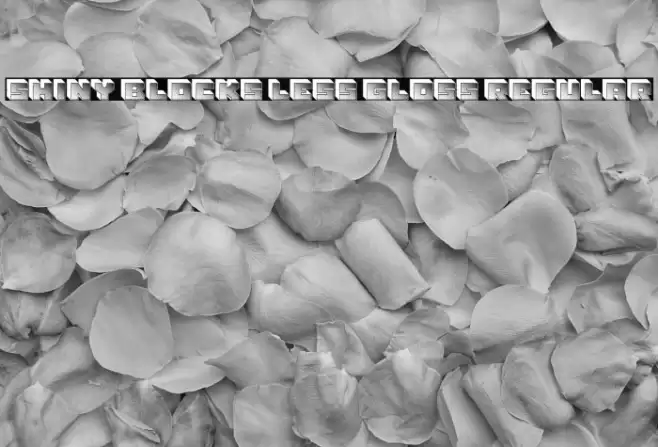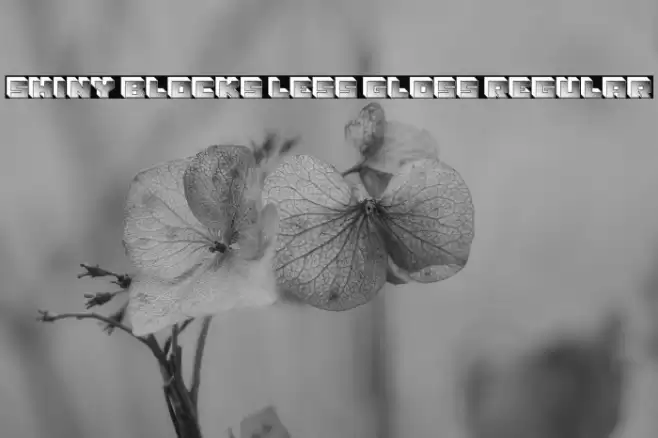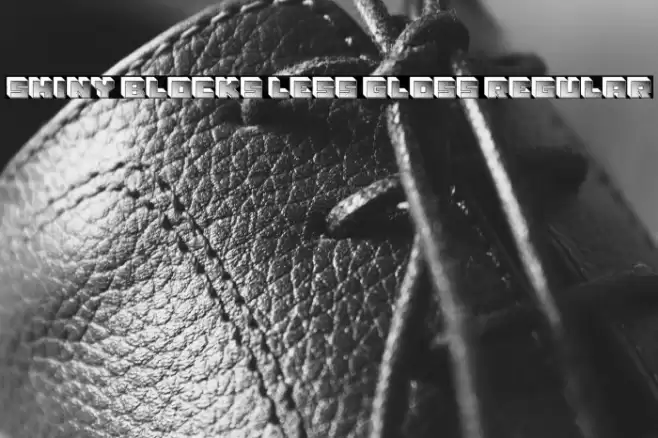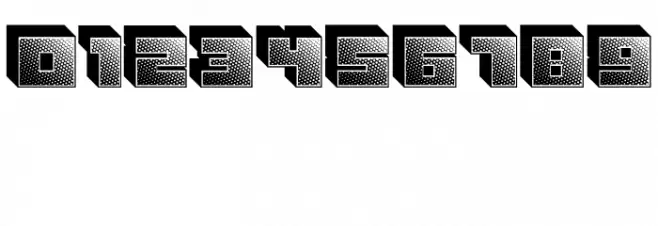
Shiny Blocks Less Gloss Regular Font
Shiny Blocks Less Gloss Regular Description
This font features a bold, three-dimensional block style with a shiny, glossy appearance. The letters are capitalized and have a distinct shadow effect, giving them a sense of depth and solidity. The interior of each character is filled with a dotted pattern, adding texture and visual interest. The edges are sharp and angular, contributing to a modern and industrial aesthetic. This font is highly decorative and makes a strong visual impact, suitable for attention-grabbing designs. The characters are evenly spaced, ensuring readability despite their complex design. The numbers and special characters maintain the same stylistic features, providing a cohesive look across all elements.
A bold, 3D block font with a glossy, dotted texture and sharp edges from Uncategorized fonts.
- Proposed Projects: Ideal for posters, logos, video game graphics, and any project requiring a bold, eye-catching typeface.